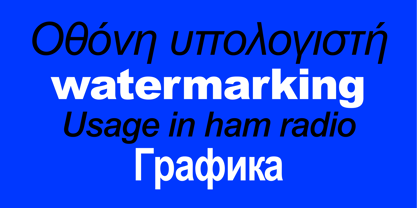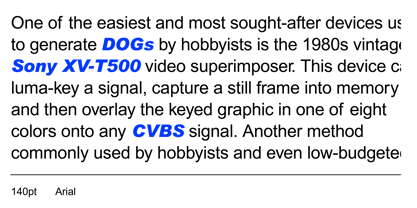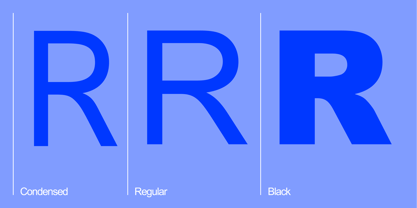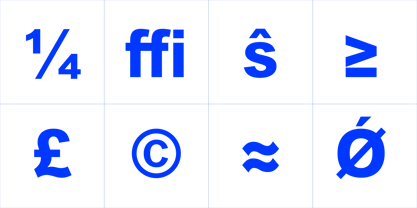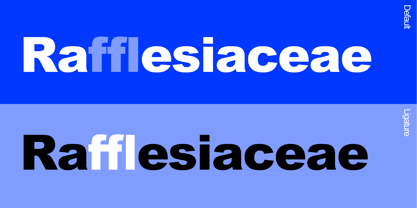
Arial
Arial®
by Monotype
Arial Font Family was designed by Patricia Saunders, Robin Nicholas and published by Monotype. Arial contains 51 styles family package options.
Arial is one of the most widely used designs of the last 30 years. Drawn in 1982 by Robin Nicholas and Patricia Saunders for use in an early IBM® laser printer, Arial has become a staple for textual content. While it is widely believed that Arial's design was based on Helvetica, it is more accurate to consider Monotype Grotesque as its ancestor.
Designers: Patricia Saunders, Robin Nicholas
Publisher: Monotype
Foundry: Monotype
Design Owner: Monotype